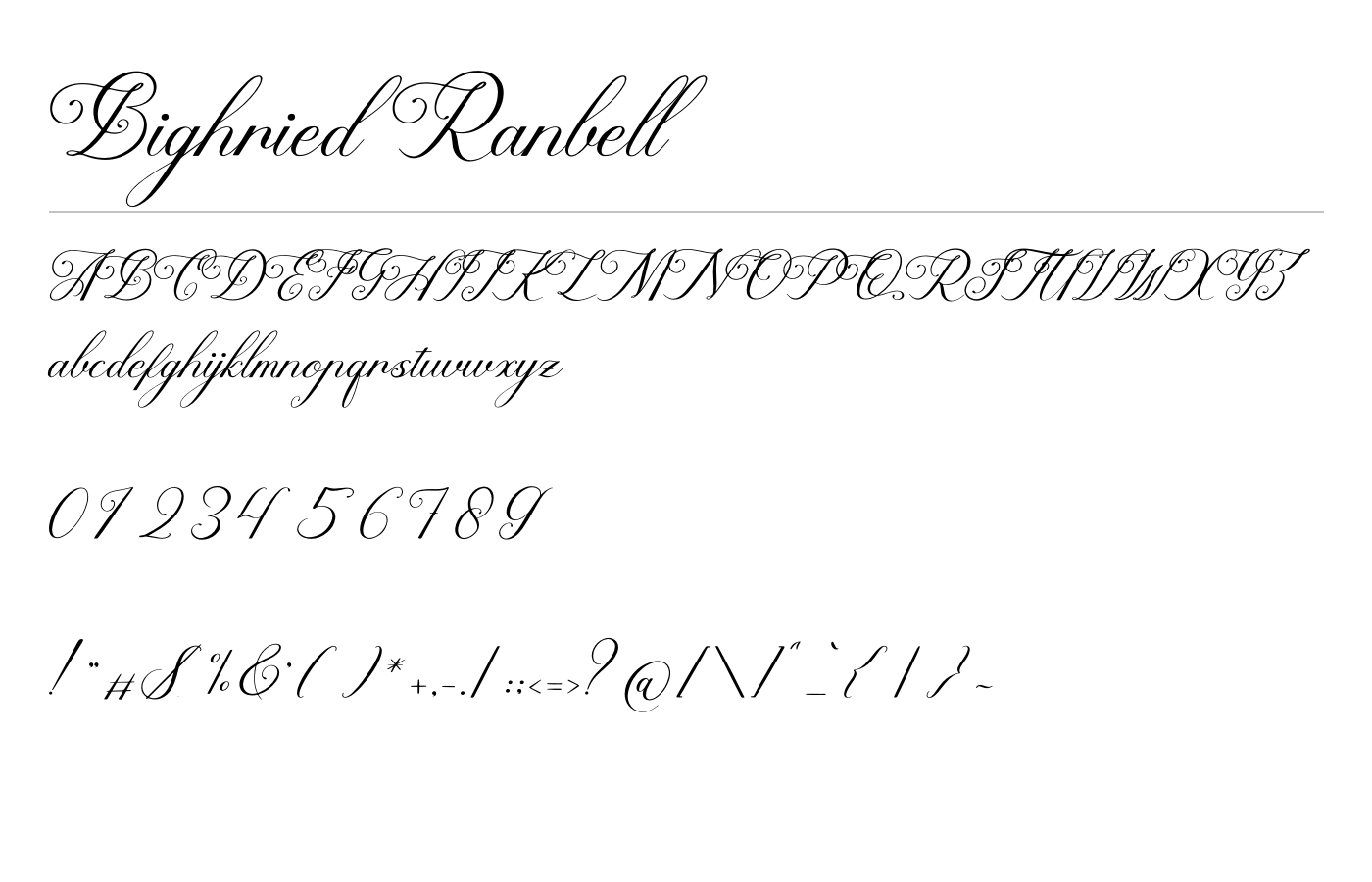
Bighried Ranbell is a delicate, elegant script font featuring fine, flowing strokes with high contrast between thick and thin lines, giving it a graceful and sophisticated feel. Its ornamental uppercase letters with intricate swashes and a slender, refined lowercase make it perfect for luxury branding, wedding invitations, and elegant editorial designs that require a touch of classic refinement. This font shines best in large-size applications or headings where its intricate details can be fully appreciated.
Bighried Ranbell Font
About Bighried Ranbell Font